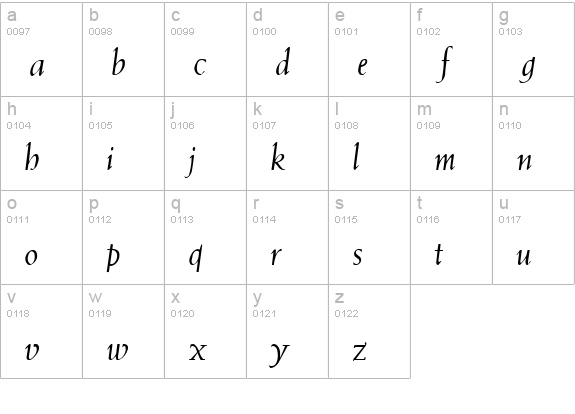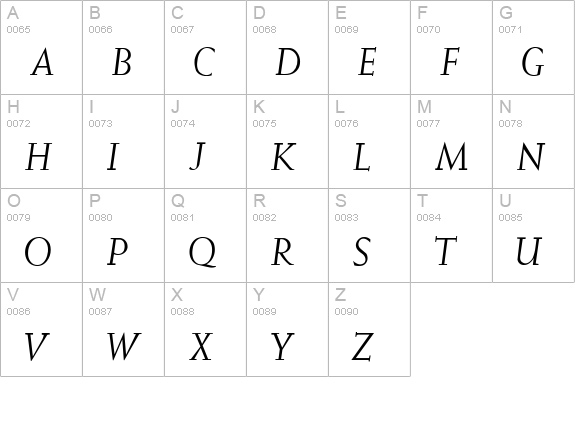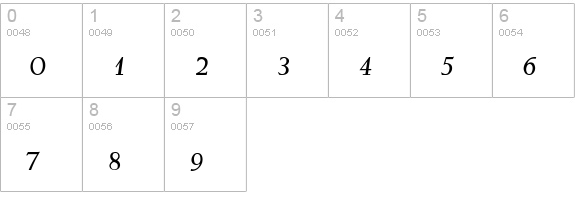
QTWeise Italic Font Details
QTWeise Italic is a distinctive, italic variant in the QTWeise typeface family \xE2\x80\x94 well suited to design and typography projects.
Introducing QTWeise Italic, a beautifully crafted font that exudes elegance and sophistication. With its slanted and graceful letterforms, this font adds a touch of stylish flair to any design project. QTWeise Italic is the perfect choice for those who seek a font that is both bold and refined. Its unique combination of delicate curves and sharp angles create a harmonious balance that is visually captivating. Whether used for branding, invitations, or editorial designs, this font will leave a lasting impression on your audience. What sets QTWeise Italic apart is not only its exceptional aesthetics but also its versatility. It seamlessly adapts to various design styles, from modern and minimalist to classic and ornate. This font effortlessly enhances any layout, making it suitable for a wide range of applications. And the best part? QTWeise Italic is available for free! Simply head over to FontsMarket.com, and you can easily download this exquisite font to elevate your creative projects. Say goodbye to expensive fonts and hello to quality design resources that don't break the bank. Whether you're a professional designer or a creative enthusiast, QTWeise Italic is the perfect addition to your font collection. Its timeless appeal and availability make it a valuable asset for any project, allowing you to create stunning visuals without compromising on style. Download QTWeise Italic today and experience the seamless blend of elegance and functionality that this font offers. Don't miss out on the opportunity to elevate your designs with this exceptional typeface, available for free at FontsMarket.com. Embrace the beauty of QTWeise Italic and unlock endless creative possibilities.